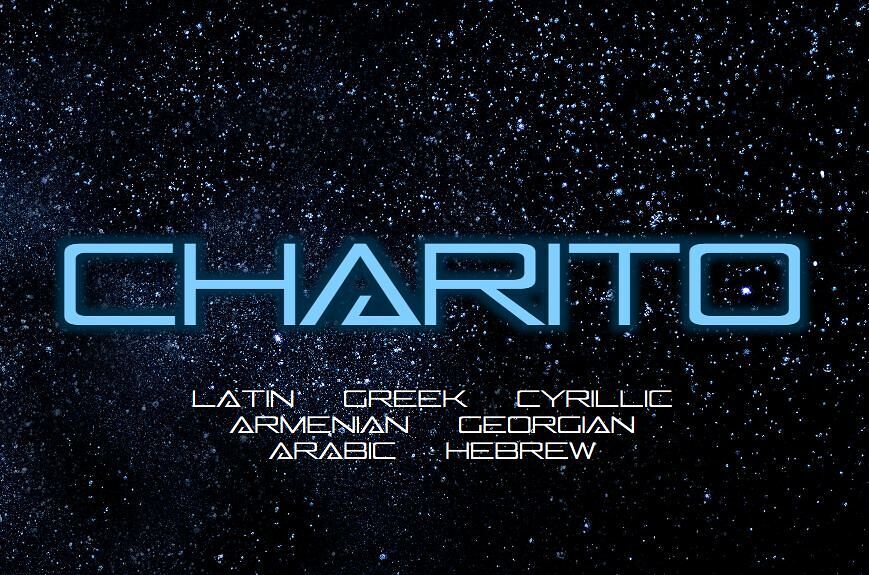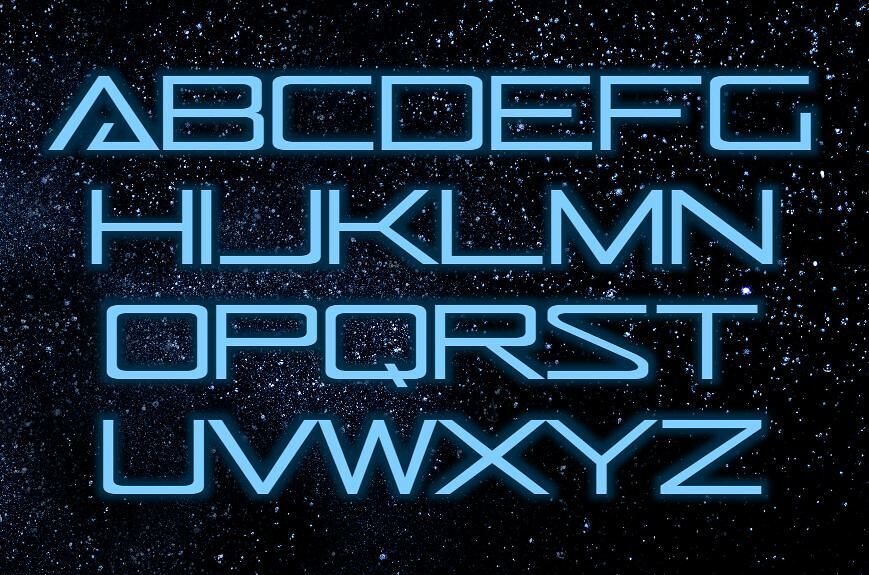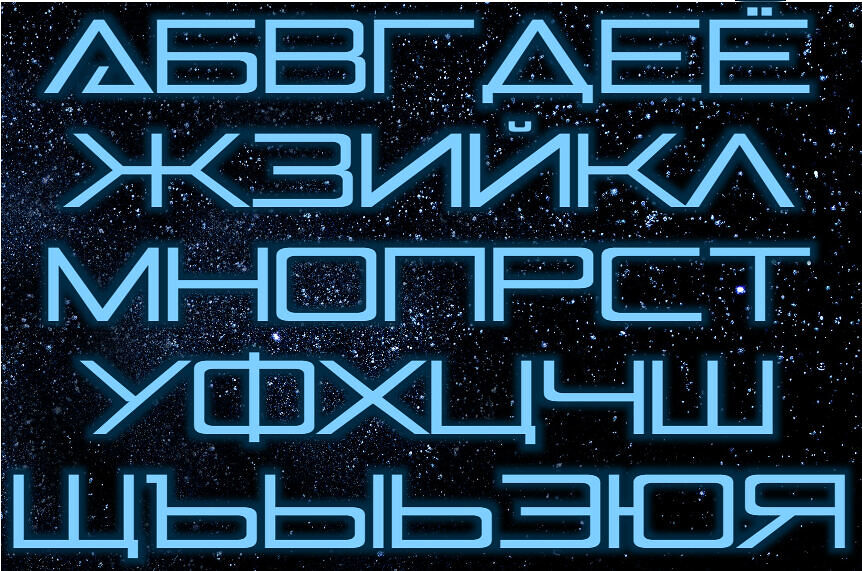
Charito Font
Charito is a futuristic, rectangular geometric sans-serif font with a distinctive, monospaced feel. Its uppercase letterforms are designed with sharp angles and clean lines, reminiscent of early digital displays or sci-fi interfaces.
This font supports seven alphabets, Latin, Greek, Cyrillic, Armenian, Georgian, Hebrew and Arabic, making it versatile for multilingual designs.